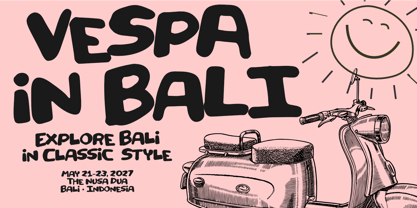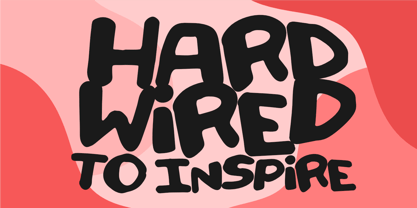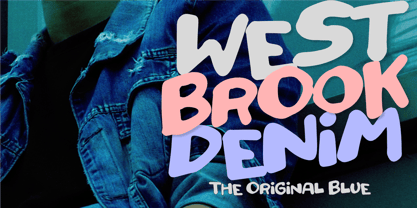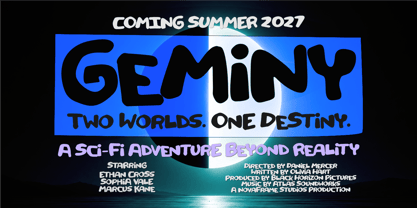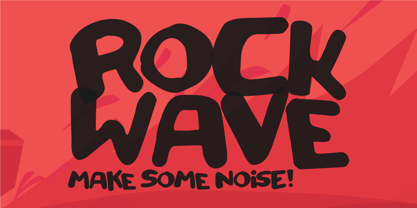
Rockwave
La familia tipográfica Rockwave fue diseñada por Aldy Sidik y publicada por Epiclinez. Rockwave contiene 1 estilos. Más información sobre esta familia
Rockwave is a bold and playful handwritten display font bursting with energy, personality, and fun. Featuring chunky, organic letterforms with a hand-drawn feel, this font delivers a cheerful and expressive look that's perfect for eye-catching headlines and creative branding. Every character is designed with smooth curves and an authentic handmade touch, giving your projects a friendly, casual, and memorable appearance.
Whether you're designing children's books, toy packaging, snack brands, music festival posters, summer event promotions, logos, T-shirts, stickers, YouTube thumbnails, social media graphics, greeting cards, or playful merchandise, Rockwave adds an irresistible dose of creativity and excitement to every design.